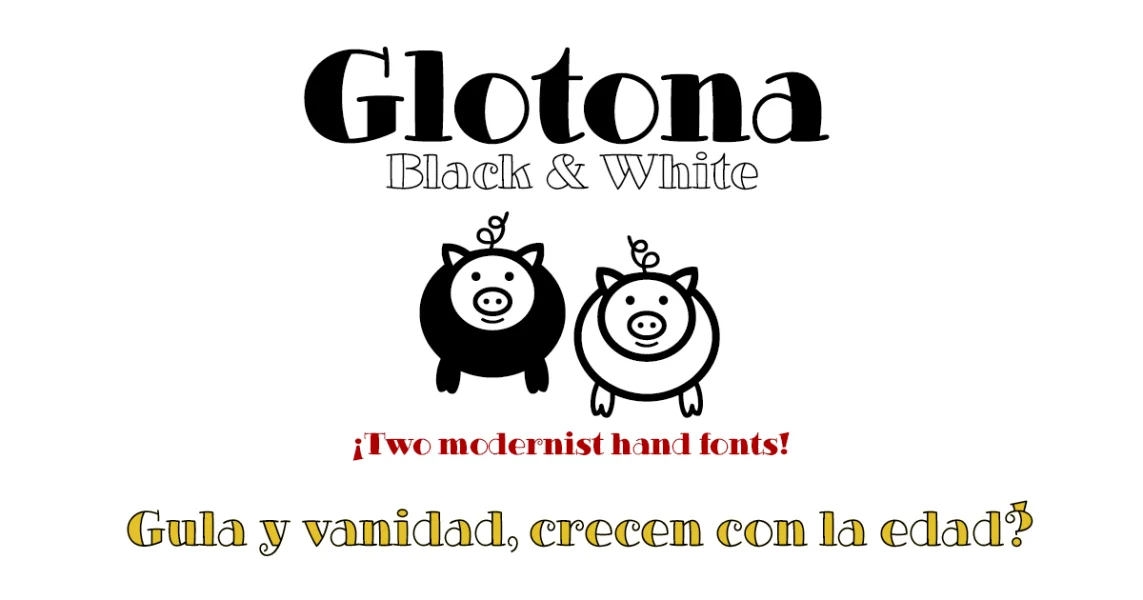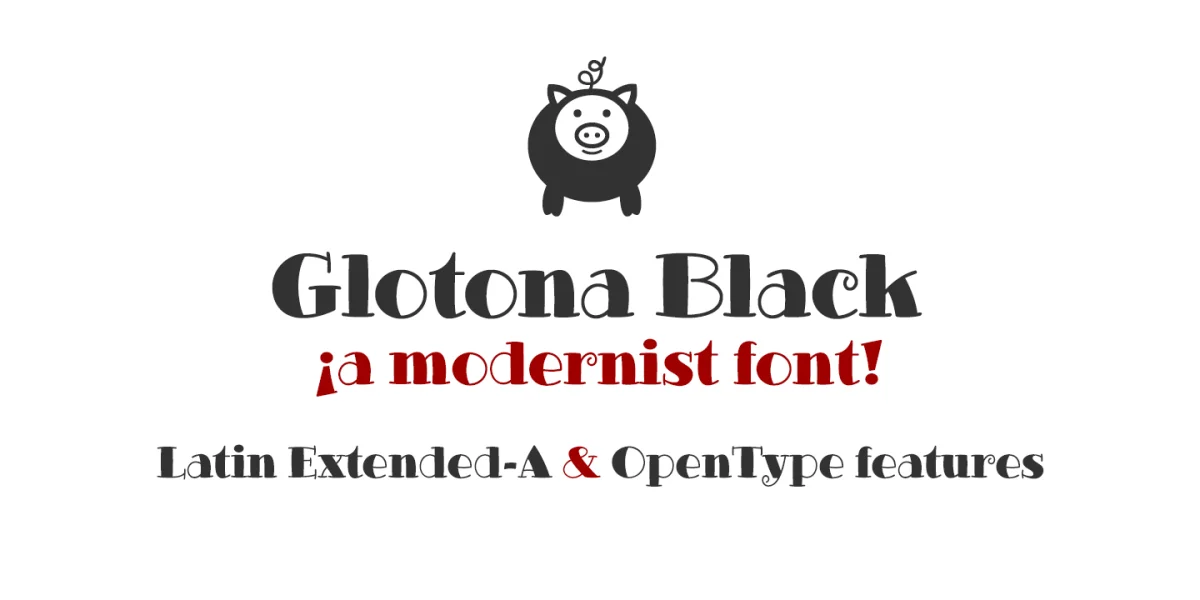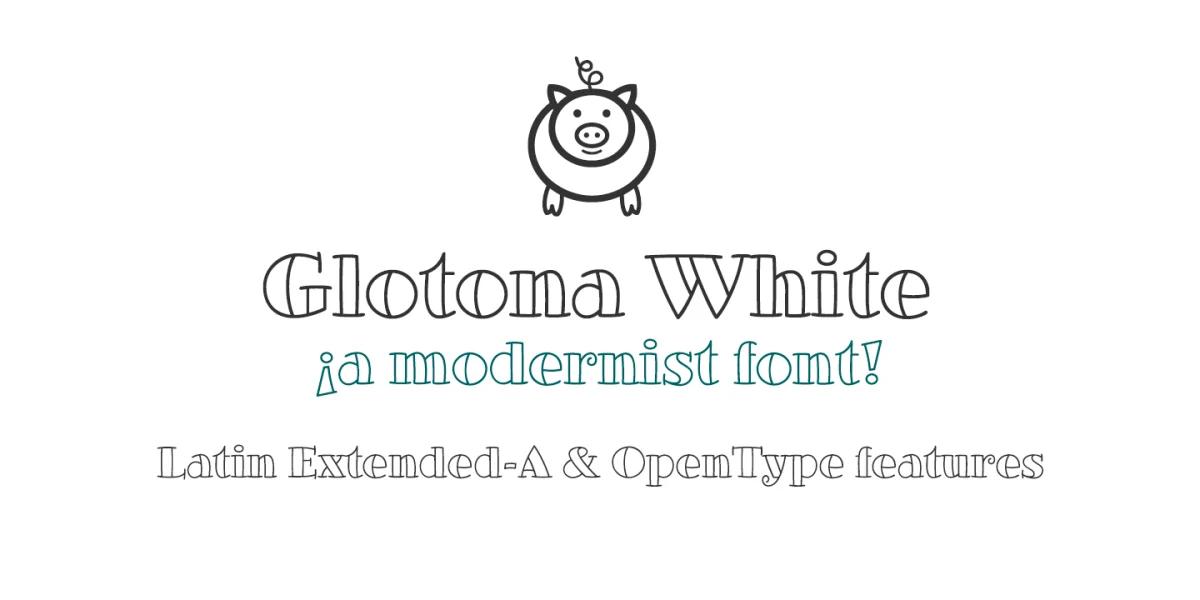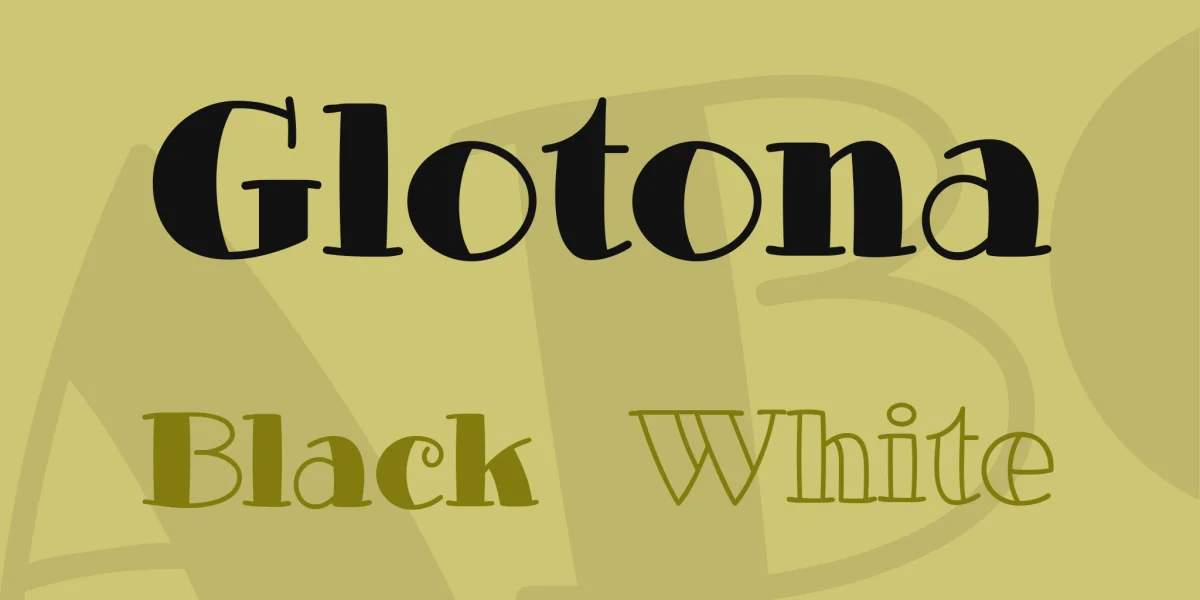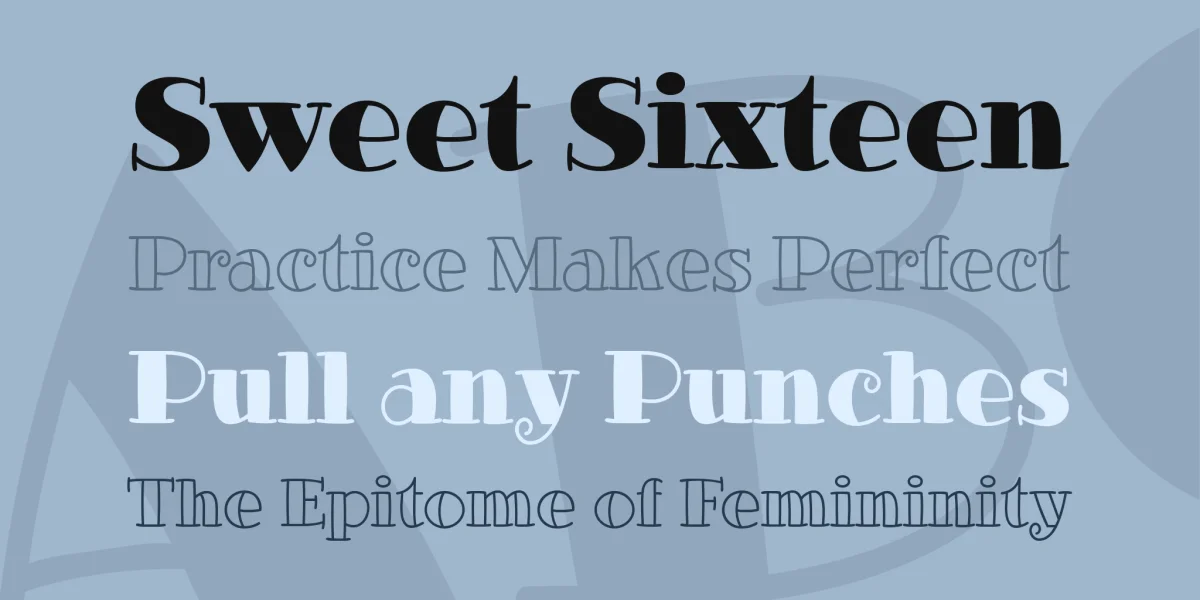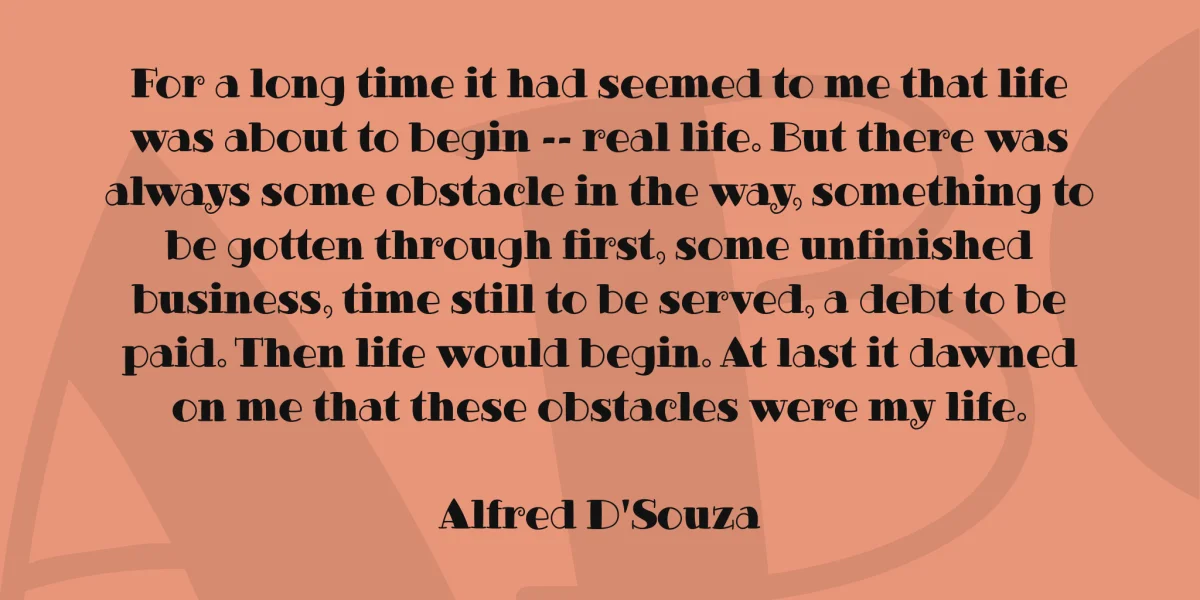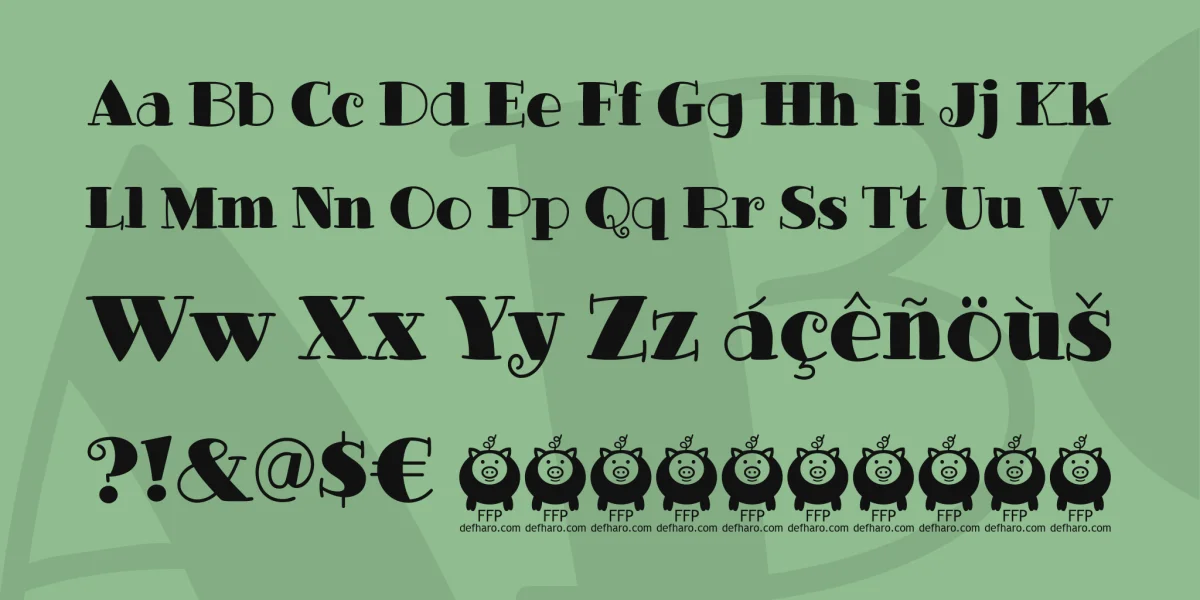
Glotona Black & White are two modernist typography handwritten and layered to create multicolored typographic headers. Glotona is my tribute to Bodoni typefaces, revolutionary when they appeared in the eighteenth century and still valid today.
Include Bitcoin symbol: b# (ligatures)